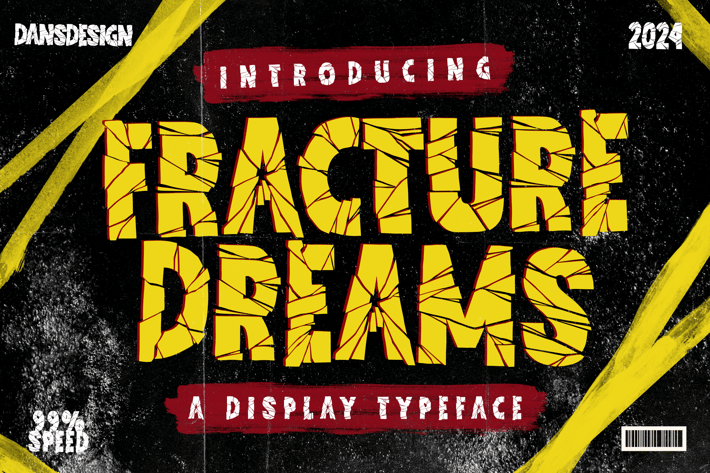
Fracture Dreams Crack Graffiti Horror Display Font
Fracture Dreams Crack Graffiti Horror Display Font Is a distinct, highly detailed. Marker Display Font.
It would make a great choice for exquisite retro-urban designs, business branding, logos, Apparel designs, and more.